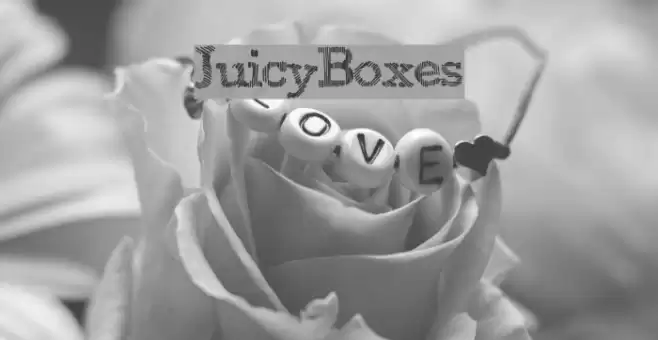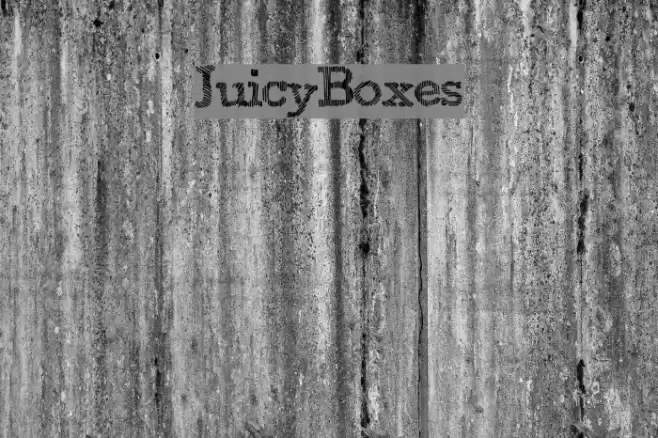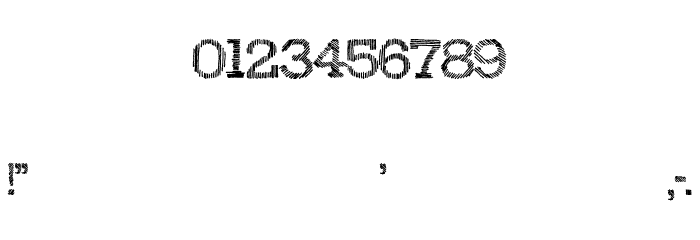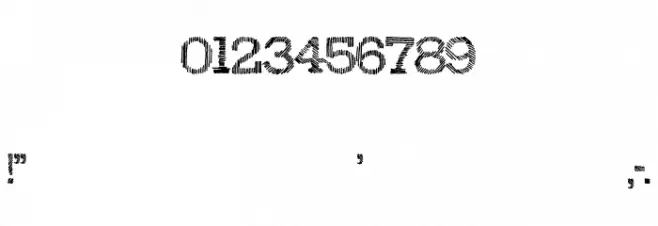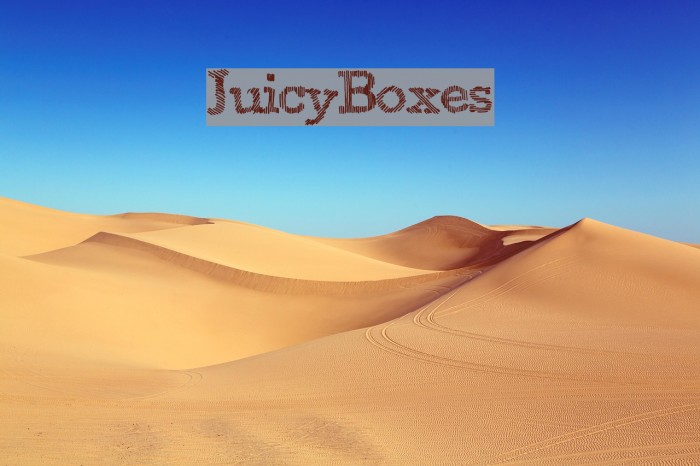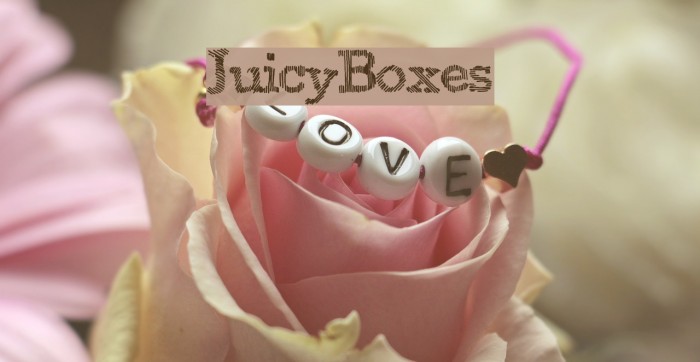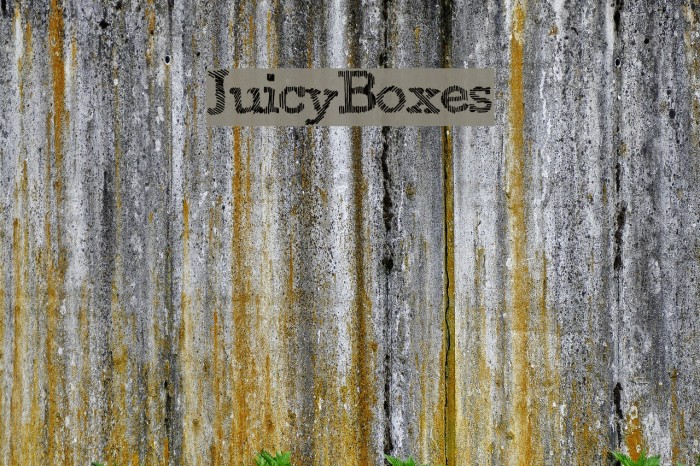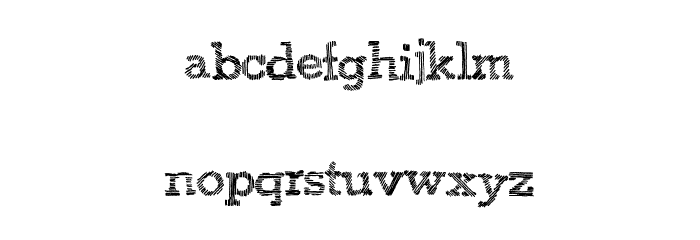
JuicyBoxes Font
JuicyBoxes Description
This font features a unique, textured appearance with a hand-drawn quality. The characters are bold and have a distinct, sketch-like pattern that gives them a dynamic and artistic feel. The uppercase and lowercase letters maintain a consistent style, with the uppercase being slightly more pronounced. Numbers and special characters follow the same textured design, ensuring uniformity across all glyphs. The font's playful and creative style makes it ideal for projects that require a touch of whimsy and individuality.
A bold, textured font with a hand-drawn, sketch-like appearance from Uncategorized fonts.
- Proposed Projects: Ideal for creative projects such as posters, invitations, and artistic branding materials.
- Overall Style: Artistic, Playful